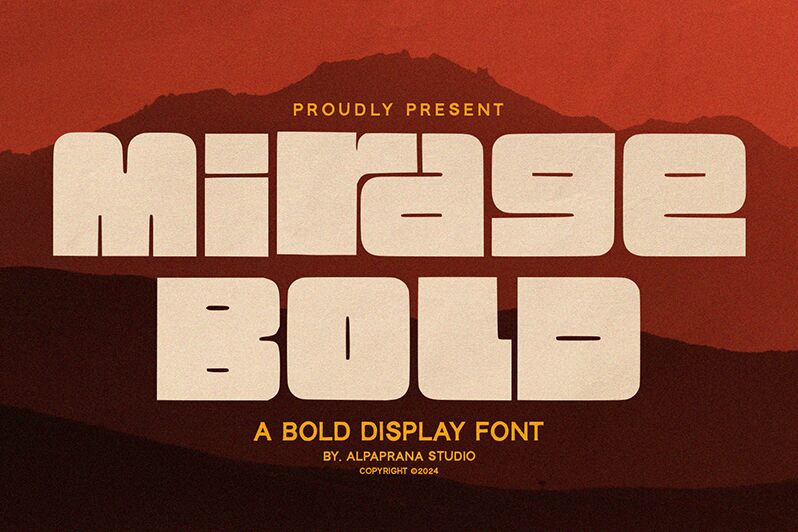
Mirage Bold font family by Alpaprana Studio is a free font for personal use fancy typeface with a geometric feel that includes two font styles. With retro inspiration and a strong presence, the font is eye-catching and suitable for a variety of display purposes. Blocky aesthetics meet modern appeal in a design that looks fresh yet carries a nostalgic vibe at the same time. The all-uppercase multilingual character set, interesting features, and attention to details give the font its unique personality.
The font is an ideal choice for branding projects and business card designs. It can be the perfect type style for logo design, posters, flyers, greeting cards, or other print design projects. Use it to make your journals a bit more interesting or give your invitations and postcards a new twist. It’s guaranteed to shine in web and app designs, banners, and headlines.